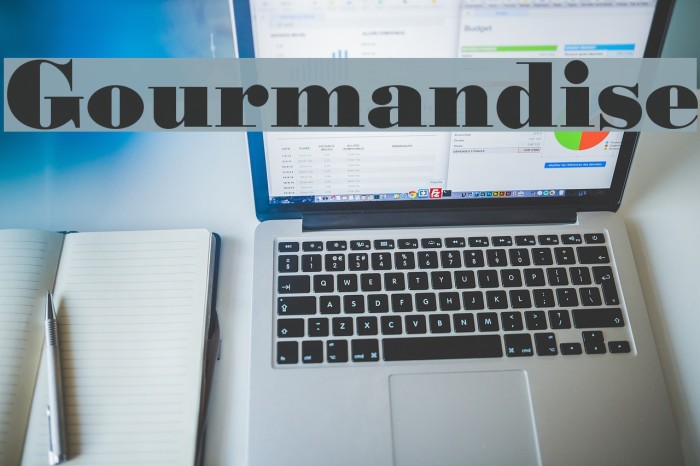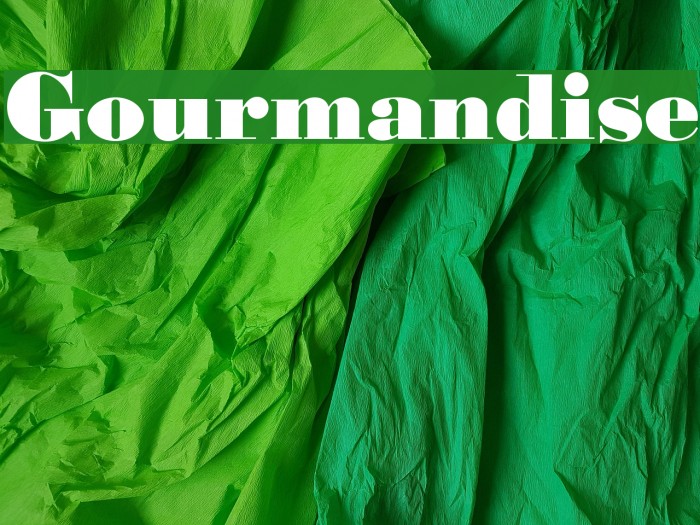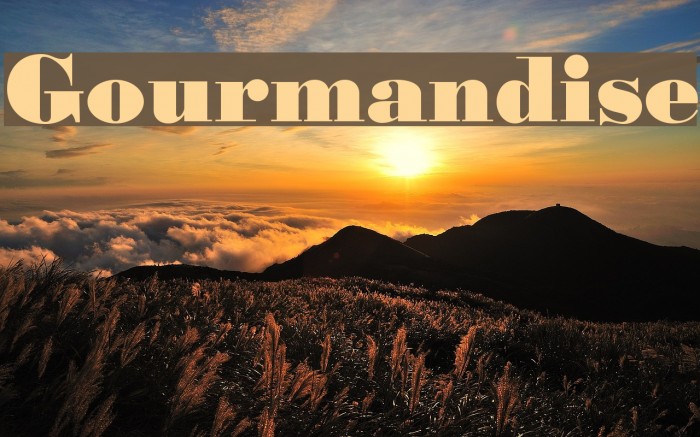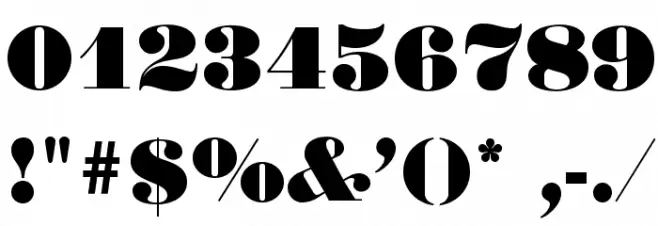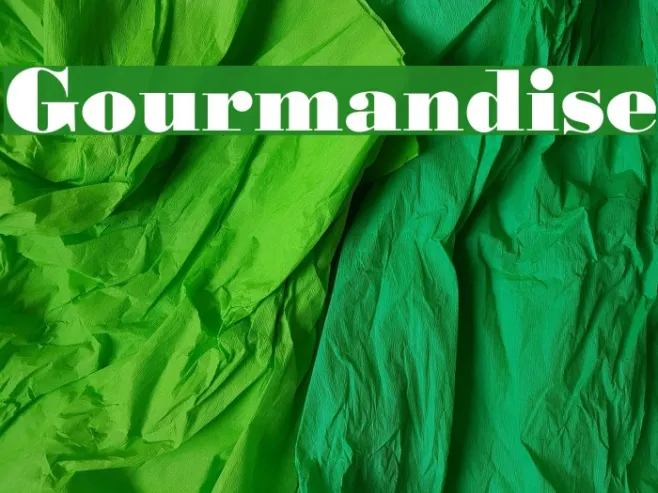
Gourmandise Font
This font is a bold and striking serif typeface with high contrast between thick and thin strokes. The uppercase letters are particularly dramatic, featuring wide, expansive shapes that command attention. The lowercase letters maintain a consistent style, with rounded forms and distinctive serifs that add a touch of elegance. The numerals are equally bold, ensuring they stand out in any context. Special characters are designed with the same attention to detail, making them an integral part of the font's overall aesthetic. This typeface is ideal for projects that require a strong visual impact and a sense of sophistication.
A bold, high-contrast serif typeface with dramatic, wide letterforms.
- Proposed Projects: Ideal for luxury branding, magazine headlines, and elegant invitations.
- Category: Serif
- Width: Expanded
- Overall Style: Classic